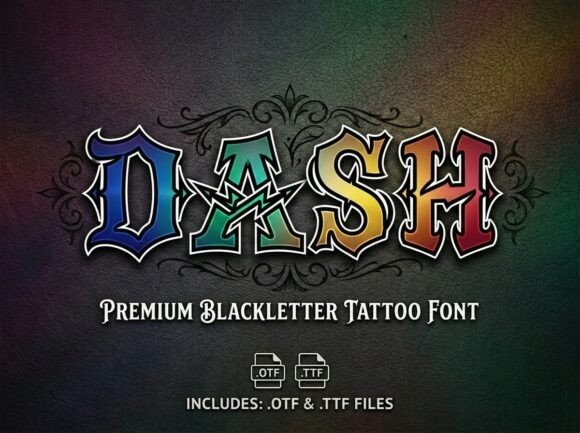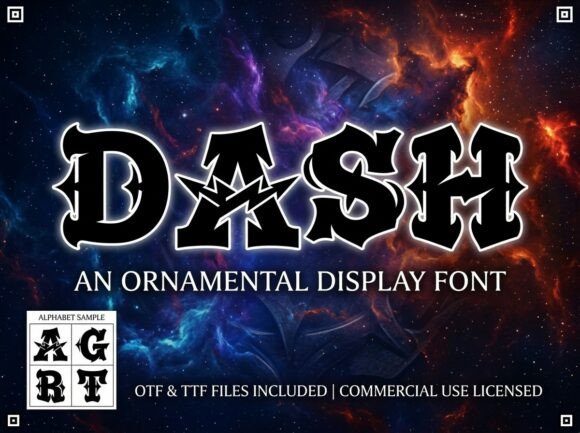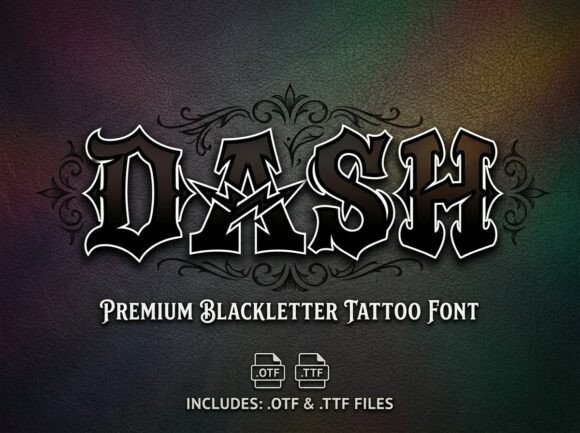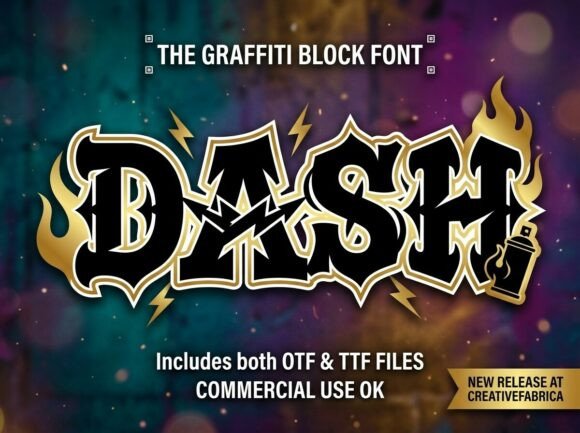
Introducing Dash Font: The Ultimate Choice for Bold and Edgy Designs
In the world of typography, fonts play a crucial role in conveying the tone and personality of a brand. For designers and crafters looking to make a statement, Dash Font is the perfect choice. This aggressive display typeface is designed to command attention, exuding a “rebellious-and-regal” soul that’s perfect for independent apparel labels, boutique craft brewery logos, custom motorcycle shop signage, and high-impact social media headers.
The Unique Characteristics of Dash Font
Dash Font features heavy, high-contrast blackletter forms that are uniquely characterized by rhythmic, razor-sharp spurs, jagged central lightning-bolt motifs, and chiseled terminals. These distinctive elements bridge the gap between historic West Coast tattoo culture and modern streetwear branding, making Dash a versatile font that can be used in a variety of design applications.
A Font that Embodies Counter-Culture Personality
Dash Font is more than just a font – it’s a statement. Its formidable structural weight and bold, counter-culture personality make it the premier choice for designers and crafters who want to create bold and edgy designs. Whether you’re looking to create a logo for a custom motorcycle shop or a social media header for a streetwear brand, Dash Font is the perfect choice.
Design Applications for Dash Font
Dash Font is a versatile font that can be used in a variety of design applications, including:
- Independent apparel labels: Create bold and eye-catching logos that stand out in a crowded market.
- Boutique craft brewery logos: Add a touch of edginess to your brewery’s branding with Dash Font.
- Custom motorcycle shop signage: Create bold and attention-grabbing signs that reflect the rebellious spirit of motorcycle culture.
- High-impact social media headers: Make a statement on social media with Dash Font’s bold and aggressive design.
Why Choose Dash Font?
So why choose Dash Font over other fonts? Here are just a few reasons:
- Unique design: Dash Font’s unique combination of heavy, high-contrast blackletter forms, rhythmic spurs, and chiseled terminals make it stand out from other fonts.
- Versatility: Dash Font can be used in a variety of design applications, from logos and signage to social media headers and more.
- Counter-culture personality: Dash Font embodies a bold and rebellious personality that’s perfect for brands that want to make a statement.
Tips for Using Dash Font
Here are a few tips for using Dash Font in your designs:
- Use it boldly: Dash Font is designed to be used boldly, so don’t be afraid to make it big and attention-grabbing.
- Experiment with colors: Dash Font looks great in a variety of colors, so experiment with different colors to find the one that works best for your design.
- Pair it with other fonts: Dash Font can be paired with other fonts to create a unique and interesting design.
Dash Font is a powerful and versatile font that’s perfect for designers and crafters who want to create bold and edgy designs. With its unique combination of heavy, high-contrast blackletter forms, rhythmic spurs, and chiseled terminals, Dash Font is sure to command attention and make a statement. Whether you’re looking to create a logo, signage, or social media headers, Dash Font is the premier choice.